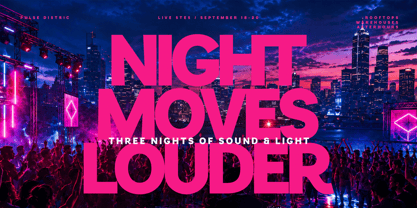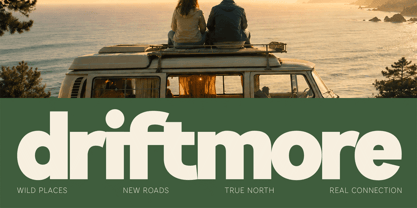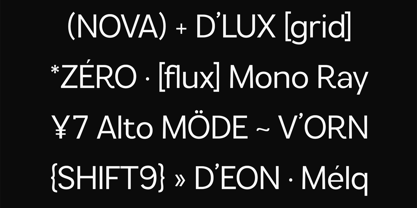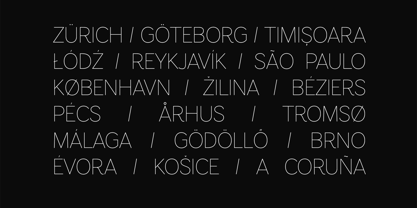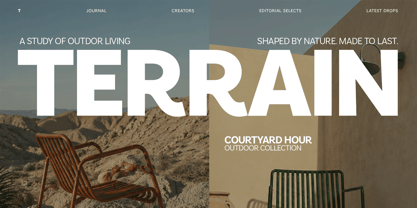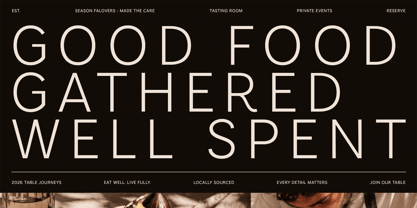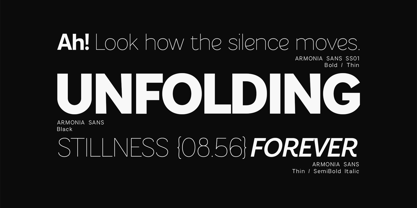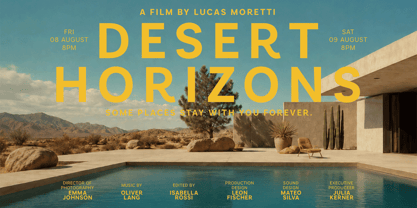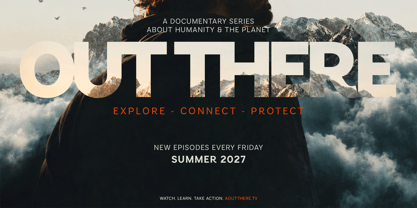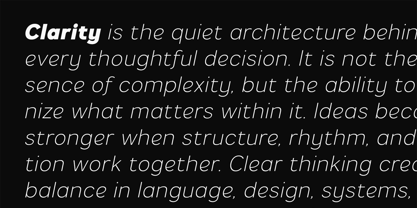
Armonia Sans
von VP Creative Shop
Die Schriftfamilie Armonia Sans wurde von Vladimir Fedotov, Plamen Petrov entworfen und von VP Creative Shop veröffentlicht. Armonia Sans enthält 18 Stile und Familienpaketoptionen. Mehr über diese Familie
Armonia Sans is a versatile contemporary sans serif family built around clarity, balance, and effortless rhythm. With 9 weights and matching italics, it moves smoothly from refined editorial typography to bold branding, packaging, web, and identity design. Clean construction, open forms, and distinctive details give Armonia Sans a modern voice without sacrificing personality.
Designer: Vladimir Fedotov, Plamen Petrov
Foundry: VP Creative Shop